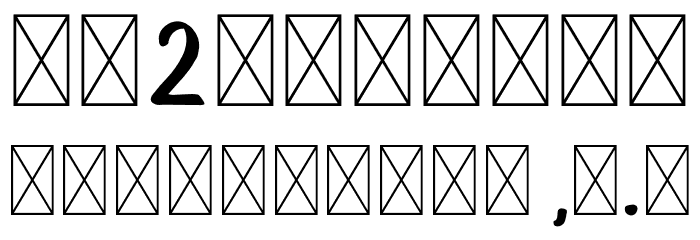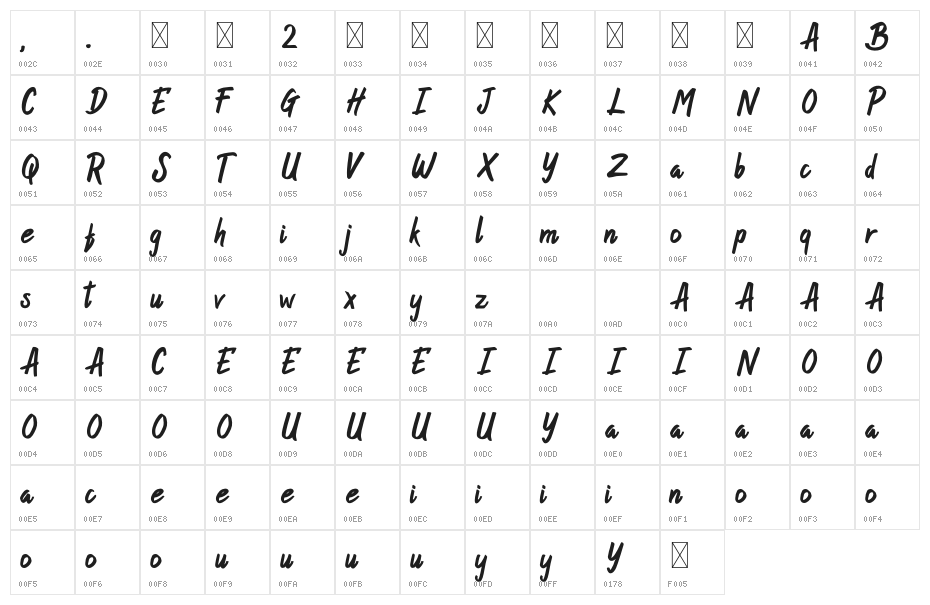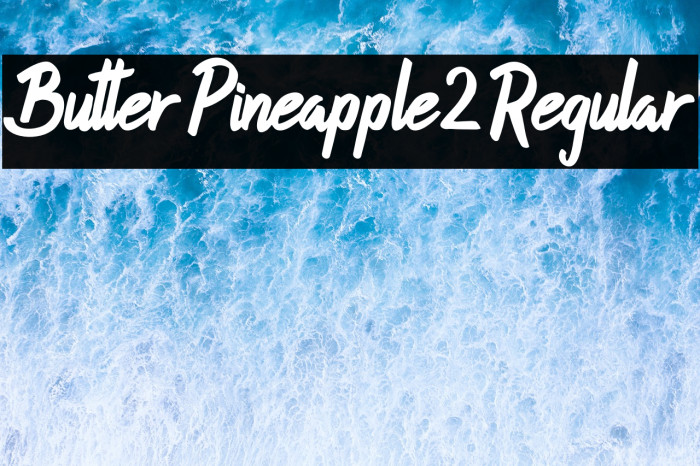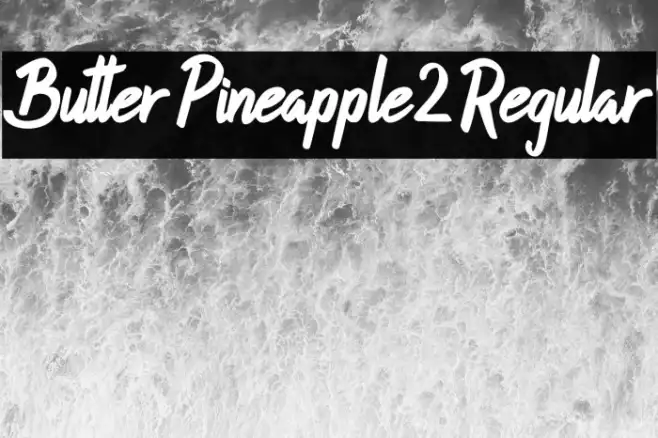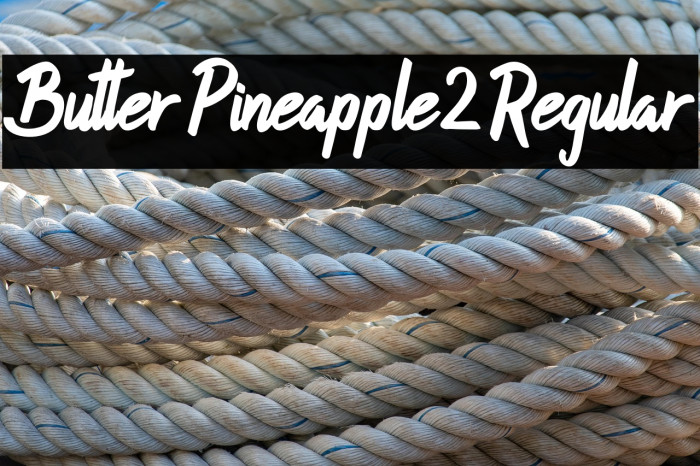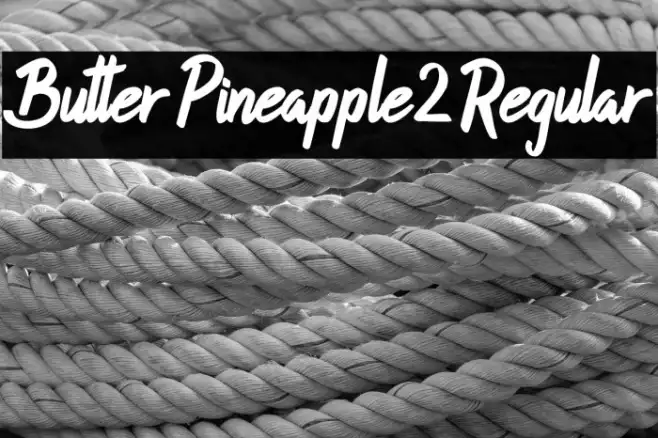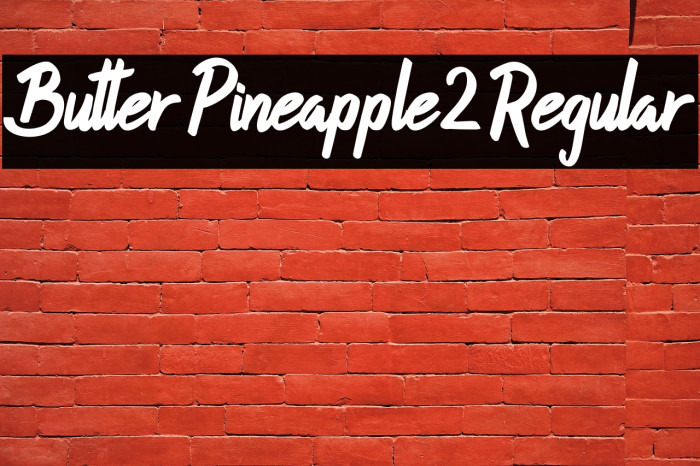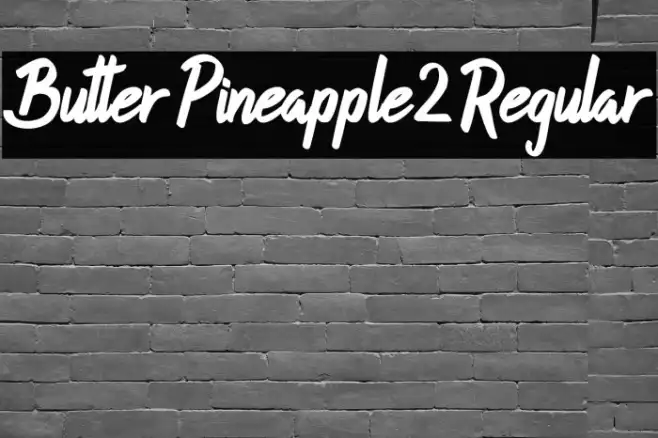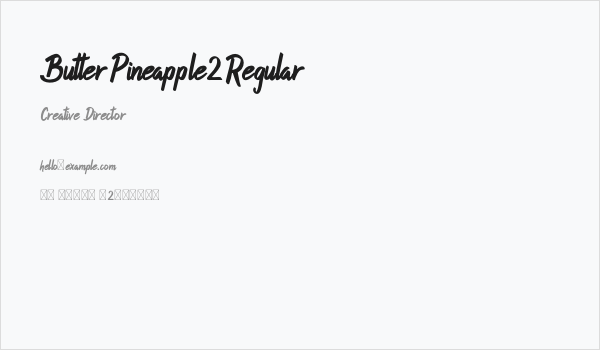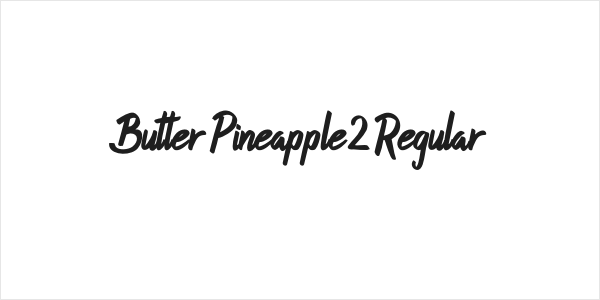
ButterPineapple2Regular Font
ButterPineapple2Regular Description
This font features a bold, handwritten style with a playful and energetic feel. The uppercase letters are tall and slightly slanted, giving a sense of movement and dynamism. The lowercase letters maintain the same lively character, with smooth curves and a consistent stroke width. The numbers are bold and clear, matching the overall style of the alphabet. The special characters are designed to complement the letters, maintaining the same playful and informal aesthetic. This font is perfect for projects that require a personal touch or a sense of fun and creativity.
| Overall Style | Playful, Energetic |
| Proposed Projects | Ideal for greeting cards, playful branding, children's books, and creative posters. |